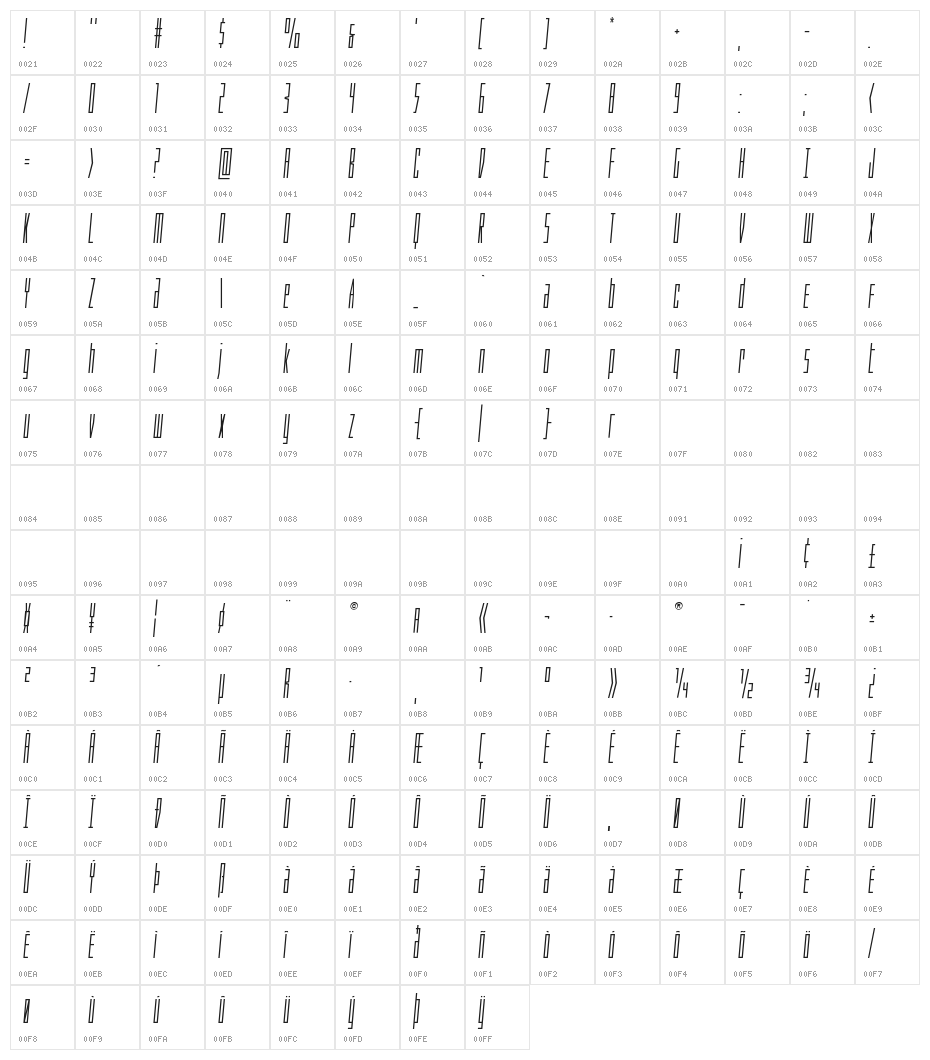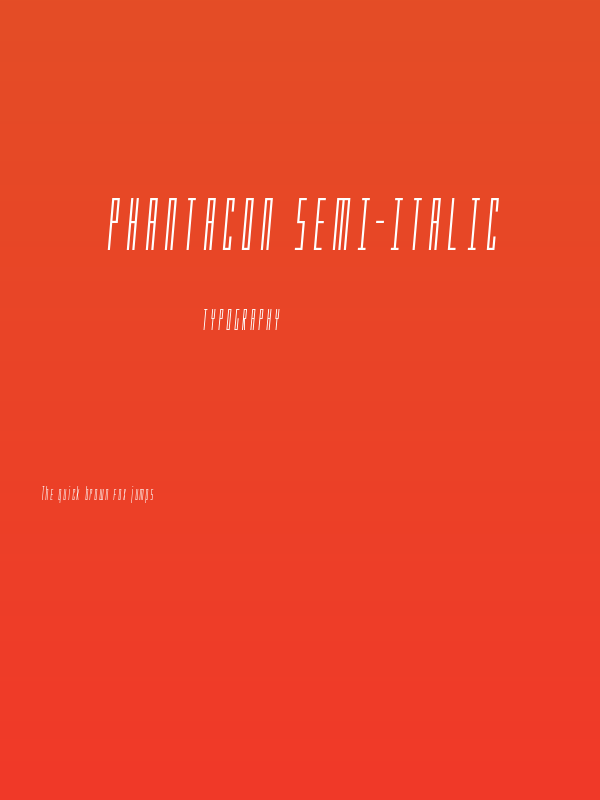
Phantacon Semi-Italic Font
Phantacon Semi-Italic Description
This font features a sleek, elongated design with a semi-italic slant, giving it a dynamic and modern appearance. The characters are tall and narrow, with consistent stroke widths that create a uniform look. The uppercase and lowercase letters maintain a cohesive style, while the numerals and special characters integrate seamlessly. The overall aesthetic is futuristic and stylish, making it suitable for contemporary design projects.
| Proposed Projects | Ideal for branding, posters, and digital media where a modern and stylish look is desired. |